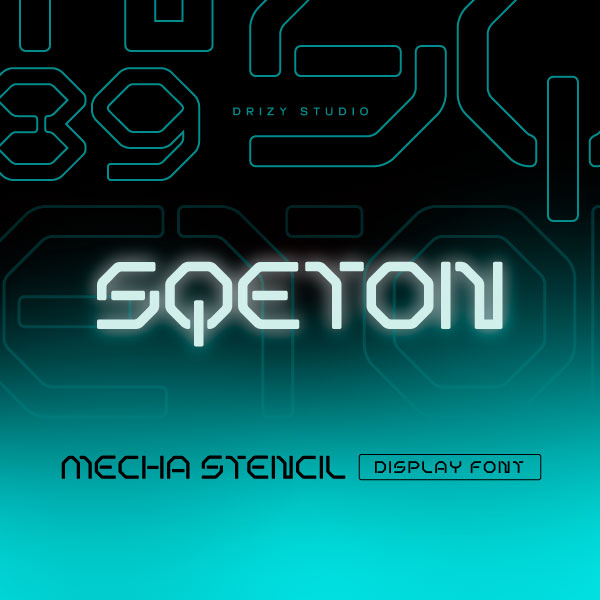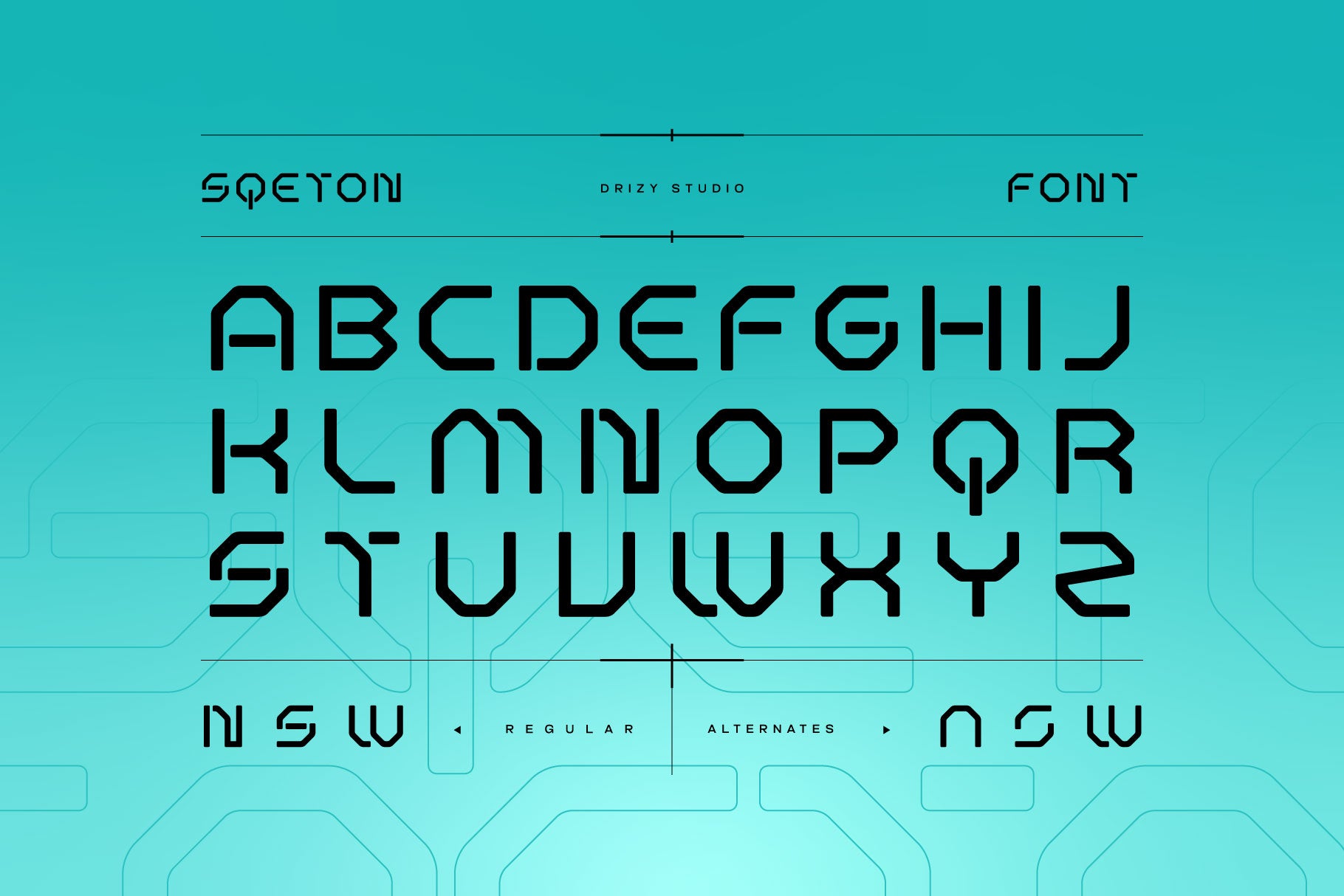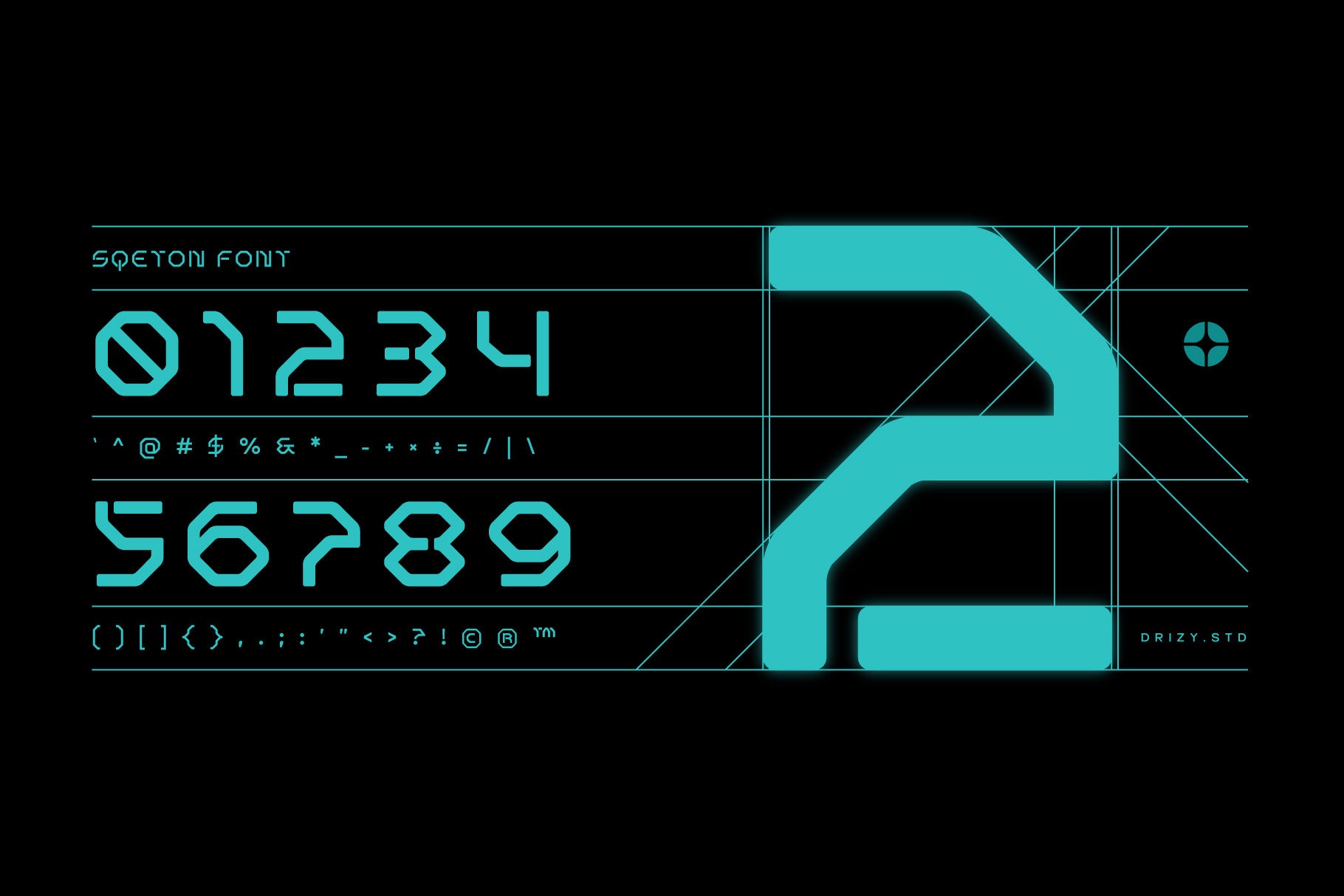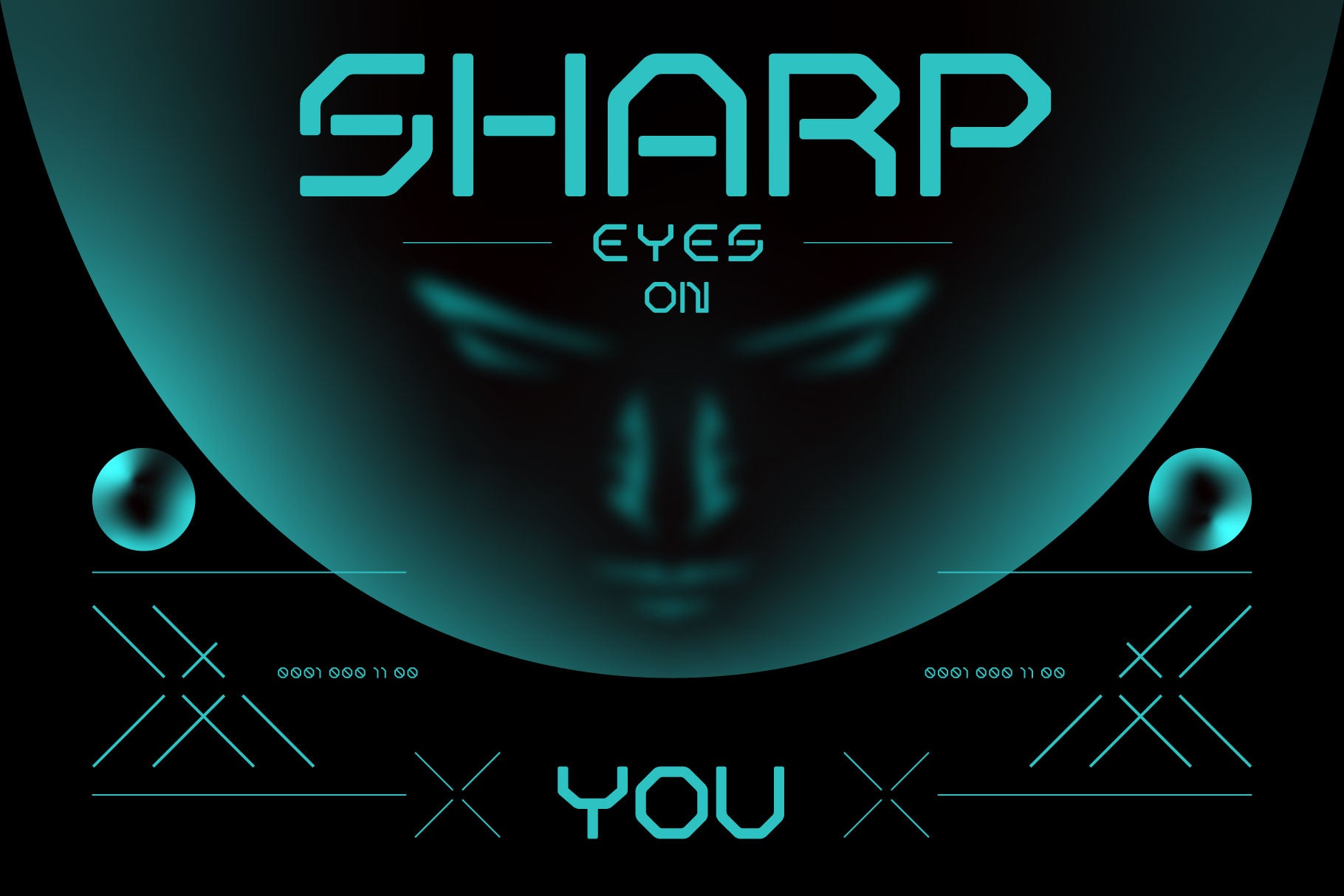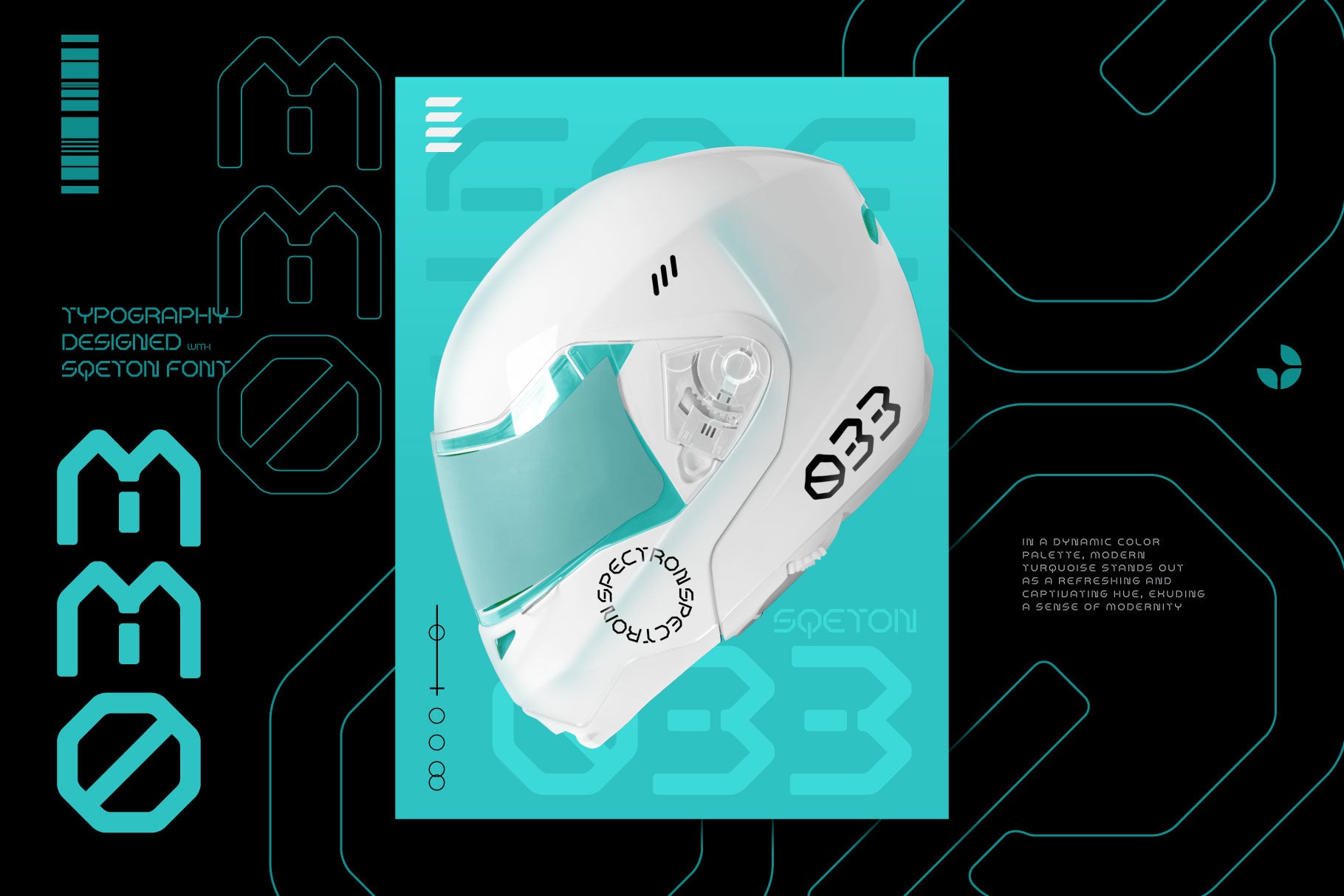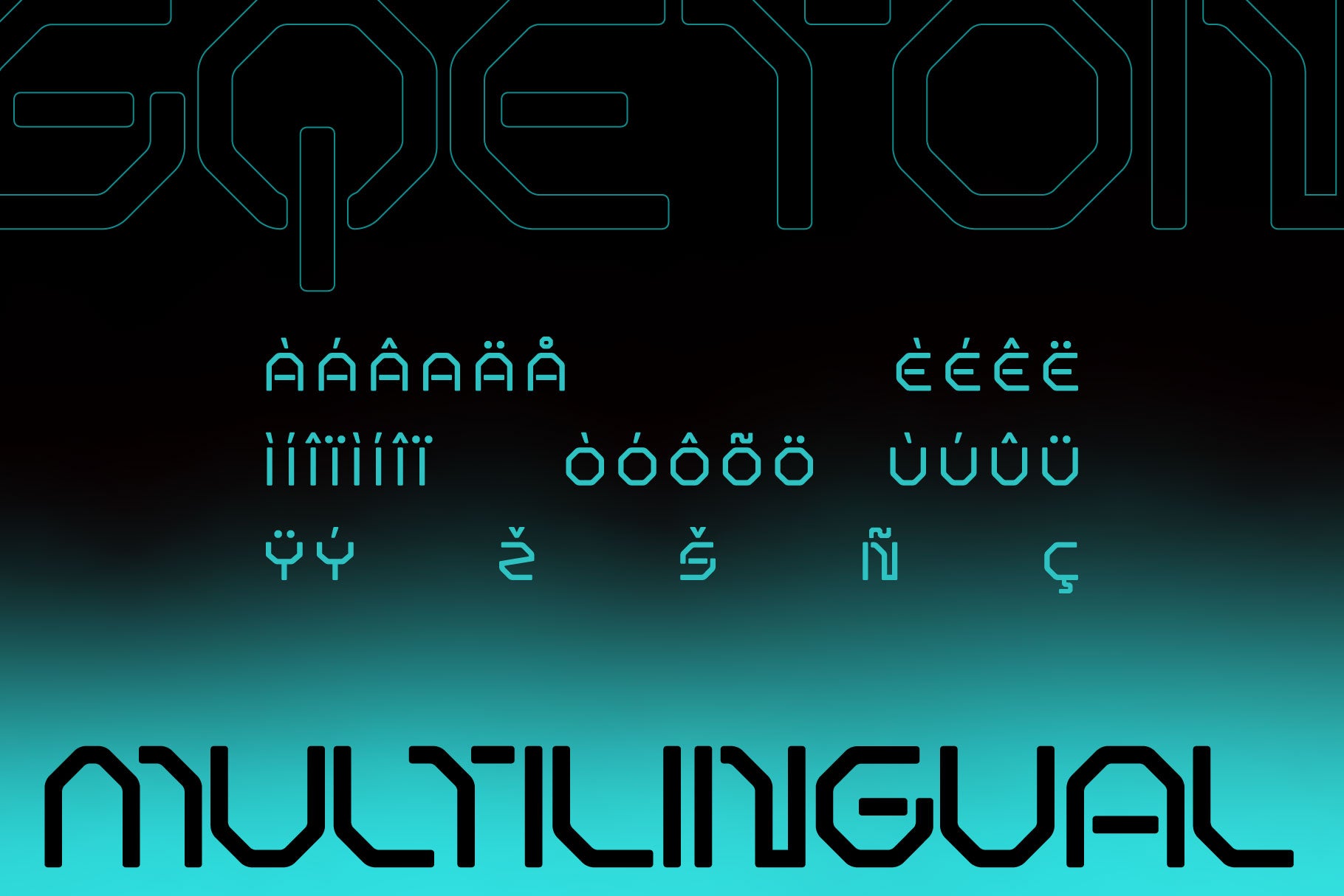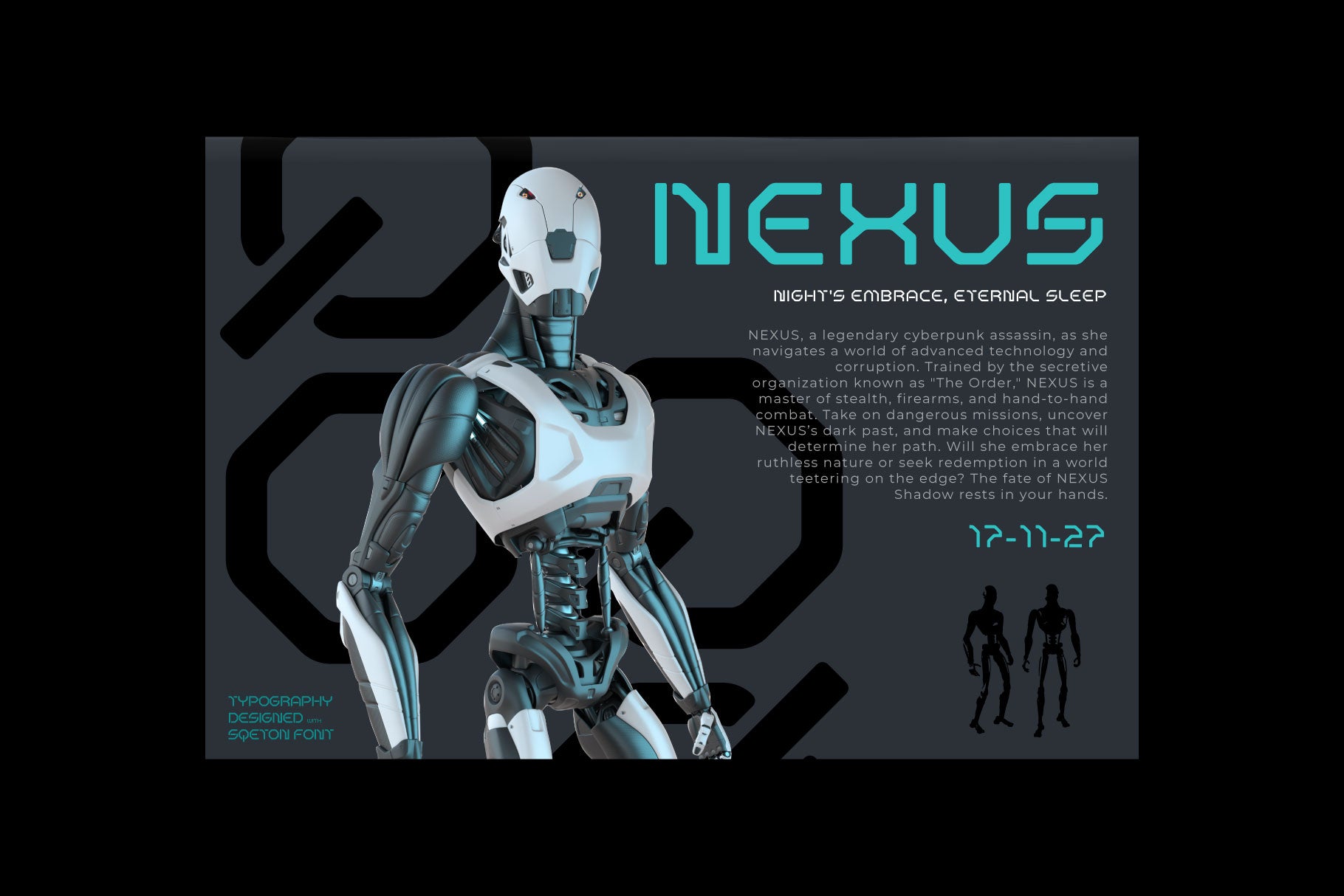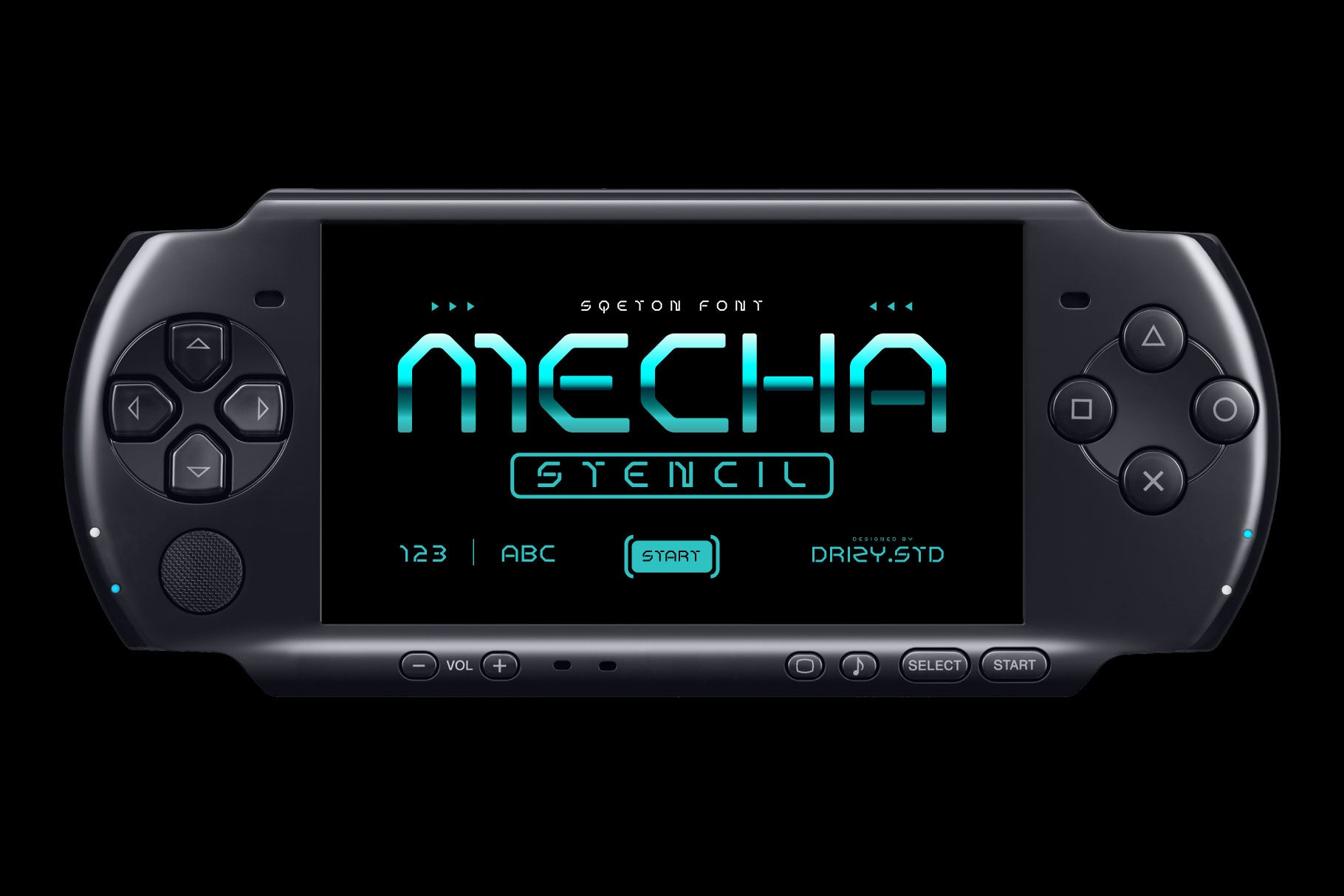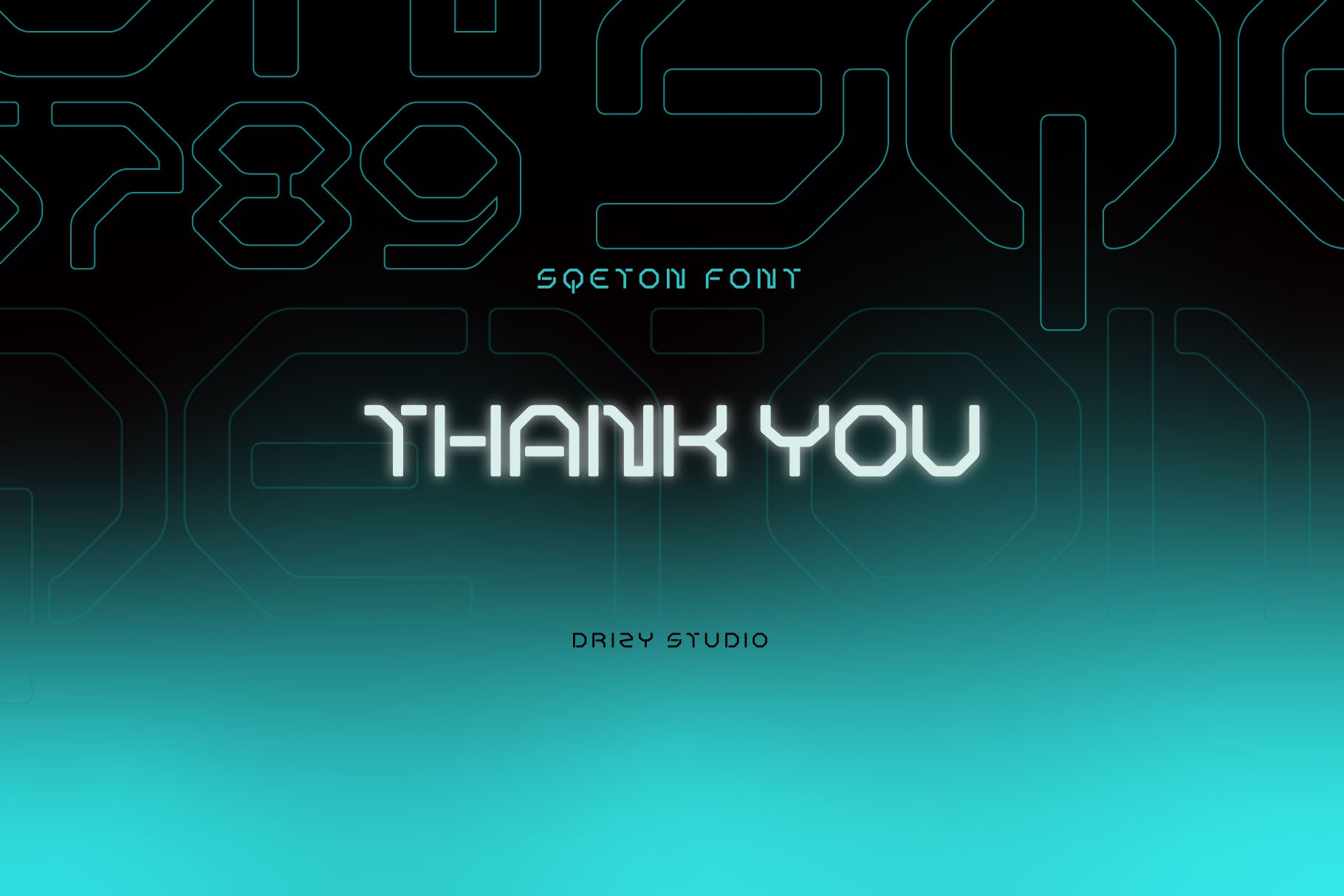
Sqeton – Mecha Stencil Display Font
Sqeton – Mecha Stencil Display Font is a strikingly modern typeface that fuses minimalist precision with futuristic edge. With its clean lines, sharp geometry, and industrial undertones, Sqeton evokes the sleek elegance of advanced technology and urban design. Each character is crafted with meticulous detail, making it ideal for projects that seek to embody innovation, strength, and a forward-looking vision. Sqeton delivers a bold, sophisticated presence that stands out in any digital or print setting.
Sqeton – Mecha Stencil Display Font features:
• Character Set (All Caps)
• Numbers & Punctuation
• Alternates
Sqeton – Mecha Stencil Display Font is a modern typeface featuring a clean, all-caps character set, numbers, punctuation, and multilingual support. Its design combines sharp geometry and industrial elements, making it suitable for a variety of projects.